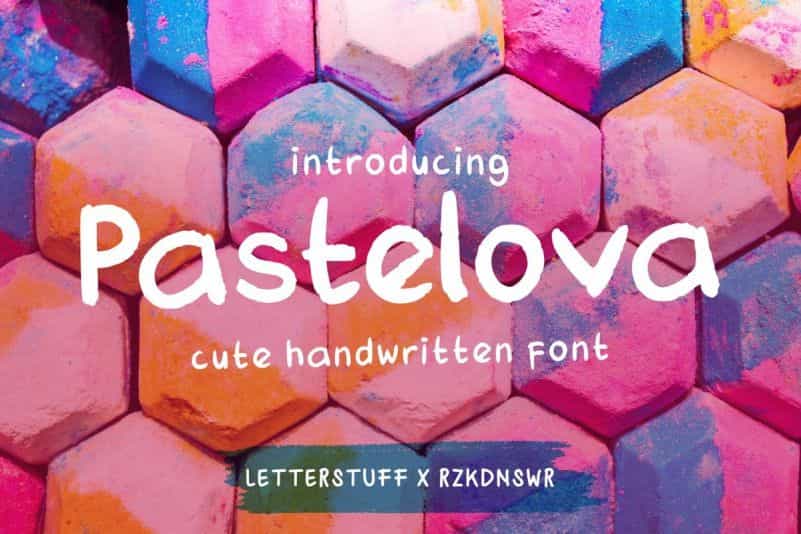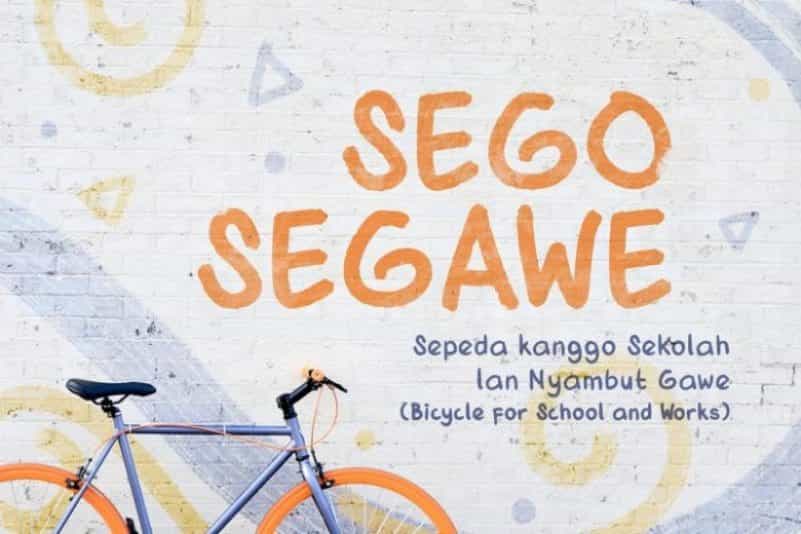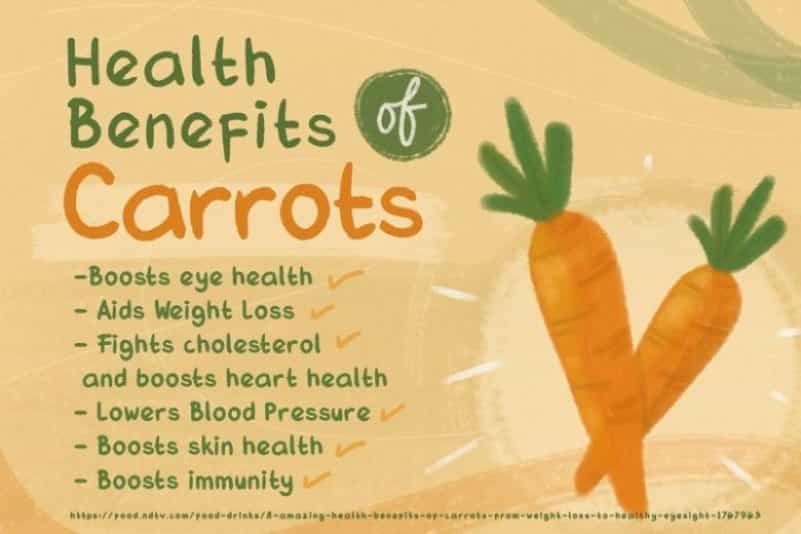
Meet our latest and the cutest font, Pastelova which was created by Rizki Daneswara. It is a font inspired by children handwriting during crayon time. What a lovely and enjoyable thing. Pastelova is a font that seems to be having fun and being comic.